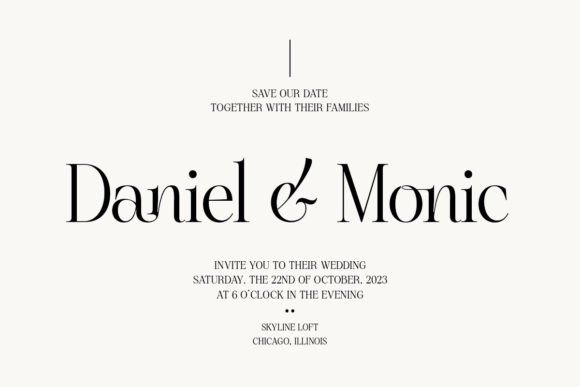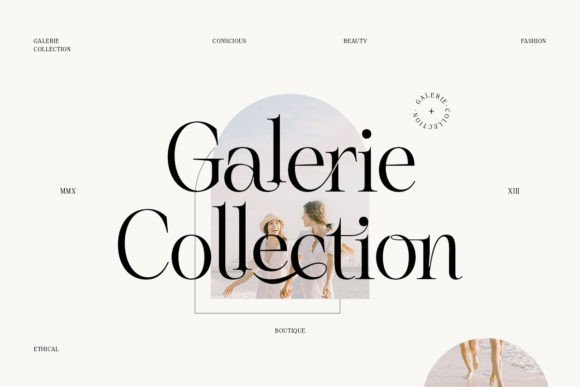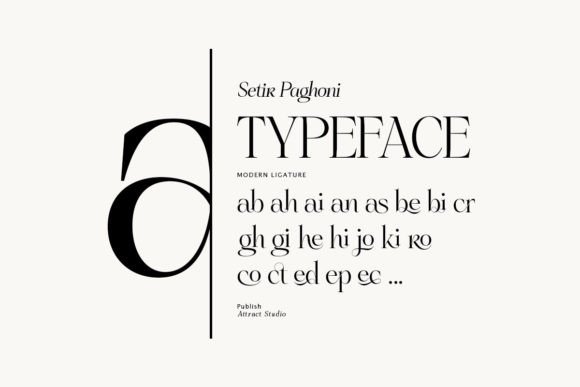
Introduction to Setir Paghoni Font
Setir Paghoni is a modern serif font that uses unique ligatures to connect letters smoothly.
Setir Paghoni comes with matching slanted trim, perfect for adding a unique touch to wordmark logos, fashion headlines, editorial designs, branding projects, magazine titles and more .